Maiola in Revy
Maiola is nicely used in body copy and some call-outs in Revy, a literary magazine that discusses the world’s best literature one book at a time.
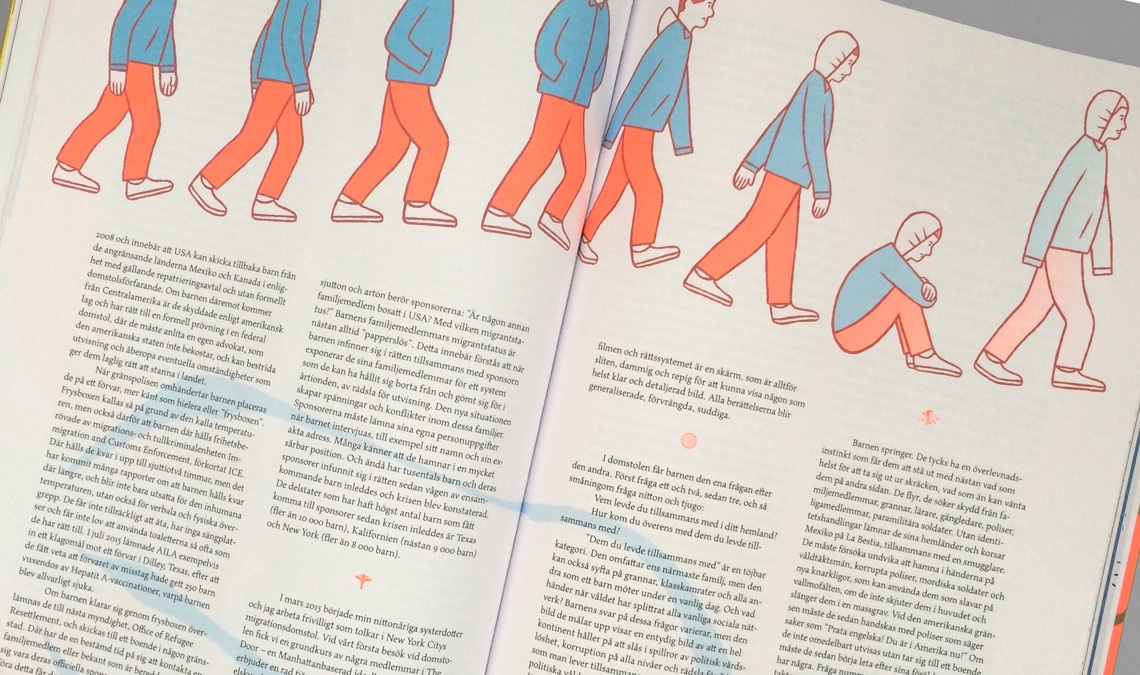
Maiola is nicely used in body copy and some call-outs in Revy, a literary magazine that discusses the world’s best literature one book at a time.
The basic idea of Revy is to use one book as a prism to discuss worthwhile topics. Instead of choosing one subject, such as racism or migration, the topics are broached with the chosen book as a starting point for the discussion. The first issue dives into the novel Jazz by Toni Morrison.
In the first research phase on the visual identity, the designers (Studio Parasto Backman) wanted to explore book design during a period of time when books were elevated. They visited old archives and antiquarian shops focusing on book design from the 17th and 18th century.
Parasto Backman, the lead designer comments, “We mainly looked at books considered to be particularly good and important, and were inspired by how the form and content were integrated with supporting elements such as ornaments. This research has since been revised to reflect Revy’s contemporary context, which forms the basis of the magazine’s visual identity. However, parts of the design are continuously changing — each issue of the magazine has a customized font in the headings, as well as customized pointers and ornaments based on the current book’s theme, and a handwritten title on the cover. In the first issue, we have primarily looked at the Harlem Renaissance — its form and expression, as a visual translation of the novel Jazz — and we chose to use the typeface Ardeco made by Irina Chukina in the headings, which we modified with details we drew. Other fonts we used are Maiola by Veronika Burian in the body text and Montserrat by Julieta Ulanovsky in the title of the cover.”